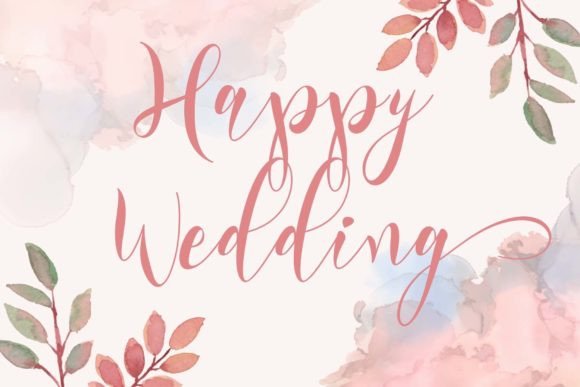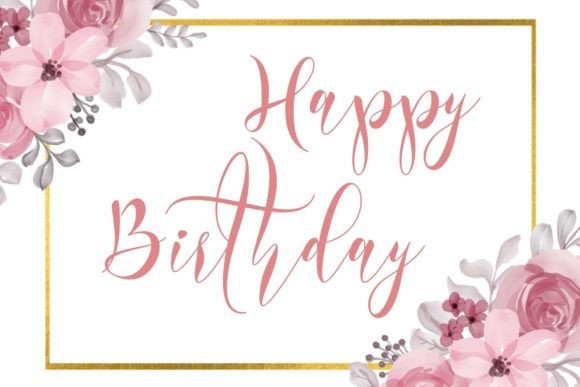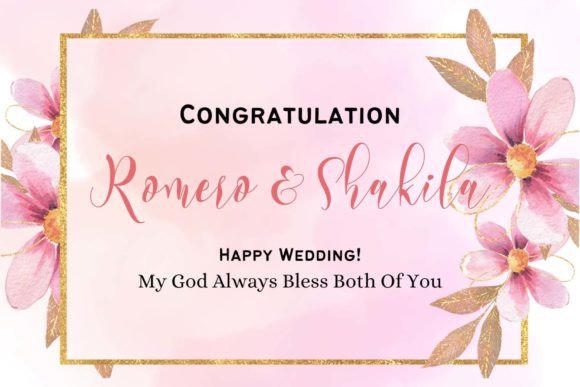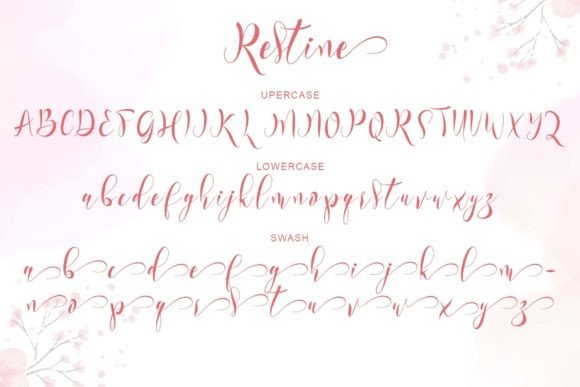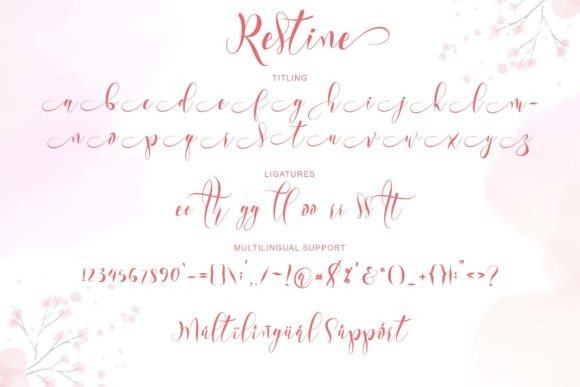
Introduction to Restine Font
Have you ever stared at a blank page, pencil in hand, waiting for the perfect font to inspire your next creative project? That’s exactly what happened to me when I stumbled upon the elegant and beautiful Restine Font. This stunning handwritten font is a game-changer for designers, offering a high-quality solution for any project that requires a touch of sophistication and whimsy.
From weddings and engagements to Christmas posters and branding materials, the Restine Font is a versatile design resource that can elevate any project to the next level. With its transparent background and multilingual support, this font is a must-have for any designer looking to add a personal touch to their work. And the best part? It’s available for free download, making it an accessible design resource for creatives of all levels.
Whether you’re working on a high-end branding project or a simple sticker design, the Restine Font is sure to impress. With its intricate details and beautiful ligatures, this font is a valuable addition to any designer’s toolkit. So why wait? Download the Restine Font today and discover a whole new world of creative possibilities.
Key Features of Restine Font
- High-quality design for creative projects, ensuring a professional and polished look.
- Designed as a versatile design resource, suitable for a wide range of creative projects, from branding and advertising to digital art and more.
Honest Review: Restine Font
I recently stumbled upon the Restine Font and was immediately drawn to its unique, modern aesthetic. This font is perfect for creative projects that require a touch of sophistication and elegance. ✨
One of the standout features of the Restine Font is its high quality. The font is crisp and clean, making it ideal for designs that require a lot of text. The transparent background option is also a great feature, allowing designers to easily incorporate the font into their designs.
While the Restine Font is a great addition to any designer’s toolkit, there are a few limitations to be aware of: ⚠️
- No bold or italic variations
- No support for certain languages
Overall, I’m impressed with the Restine Font and would definitely recommend it to designers looking for a high-quality, modern font.
The Restine Font is commonly used in creative projects, such as logos, business cards, and brochures. It is also used in presentations and documents, such as PowerPoint and Word. The high-quality design of the Restine Font makes it a great resource for designers working on a variety of projects.